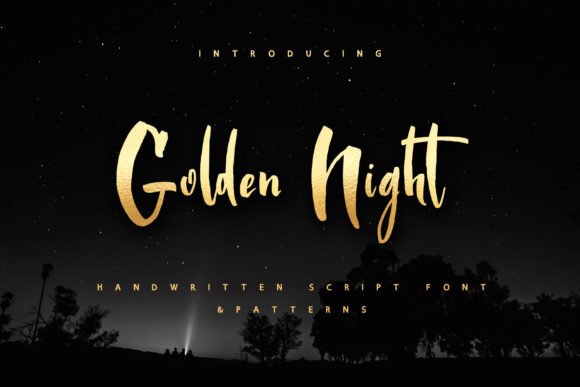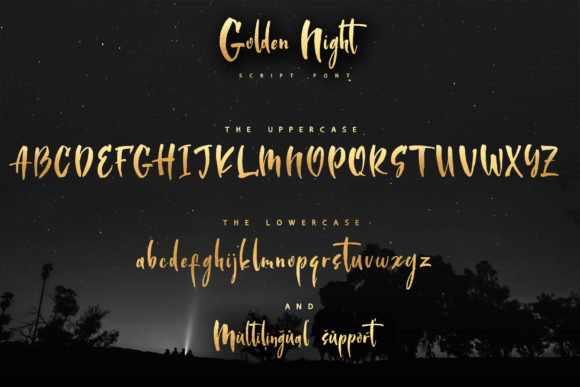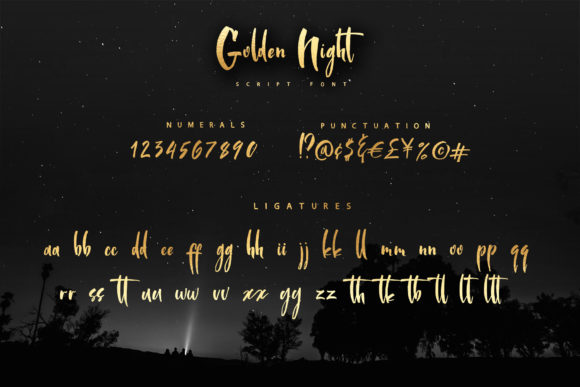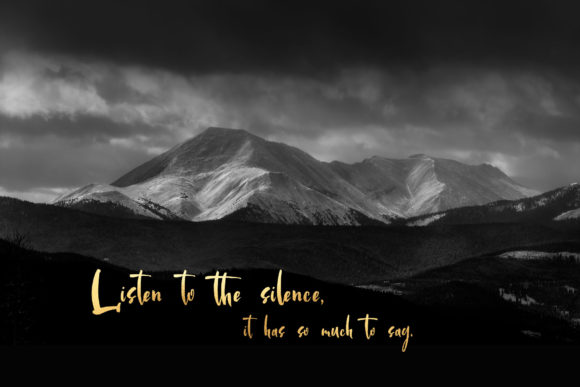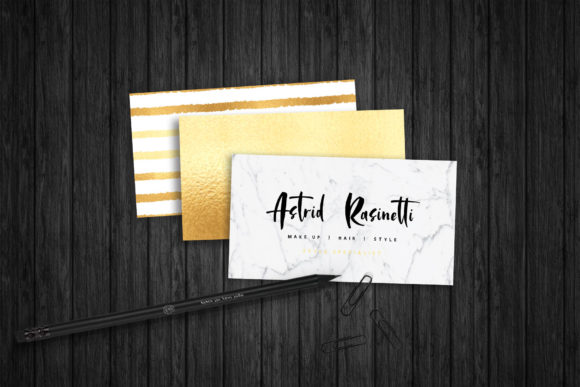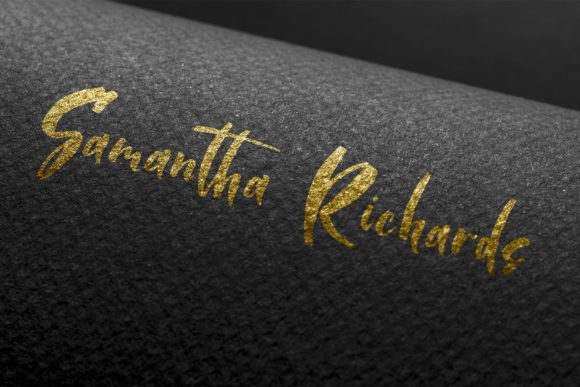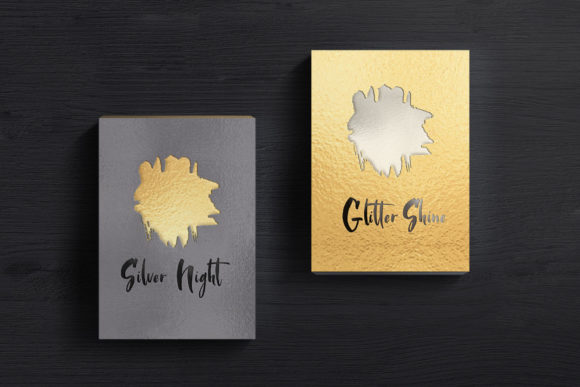
The Magic of Golden Night Font
As designers, we’ve all been there – staring at a blank page, trying to conjure up the perfect idea for a project. The words “dreamy” and “elegant” dance in our minds, and we can almost see the final product take shape. For those moments when you need to add a touch of sophistication to your design, look no further than the Golden Night Font.
This stunning handwritten script font is perfect for branding, logos, wedding stationery, social media, packaging, and other projects that require an extra layer of elegance. Its versatility and unique charm make it a valuable asset for designers, allowing them to create stunning visuals that stand out from the crowd.
With the Golden Night Font, the possibilities are endless. Add a touch of luxury with golden and silver foil, or give your design a playful twist with shiny glitter patterns. Whether you’re working on logos, signatures, labels, packaging design, or blog headlines, this font is sure to elevate your projects to the next level.
Golden Night Font Key Features
- Unique Characteristics: Elegant, cursive script with a touch of luxury and sophistication, perfect for wedding invitations, greeting cards, and formal events
Golden Night Font Review
Golden Night Font has been a fascinating addition to my design library, with a unique blend of elegance and sophistication. ✨ Its intricate details and subtle curves make it perfect for a variety of projects, from luxury branding to fine art.
- ✨ Elegant and sophisticated design that exudes luxury and refinement.
- ✨ Versatile and suitable for a range of applications, including branding, advertising, and editorial content.
- ✨ High-quality typography with intricate details and subtle curves.
- ⚠️ Limited font sizes and styles, which may limit its use in complex designs.
- ⚠️ Some users may find the font too ornate or overwhelming, especially when used in large quantities.
- ⚠️ Not suitable for digital products or interfaces, where legibility and readability are crucial.
In conclusion, Golden Night Font is a beautiful and sophisticated font that shines in certain contexts. While it has some limitations, its unique design and versatility make it a valuable addition to any designer’s library. I would recommend it for luxury branding, fine art, and editorial content, but use it judiciously in digital products and interfaces.
Getting the Most Out of the Golden Night Font
Here are some tips to get the most out of the Golden Night Font:
- Use it in conjunction with other elegant fonts to create a sophisticated look.
- Experiment with different font sizes and colors to add visual interest.
- Use it for headings and titles to draw attention to important information.
The Golden Night Font is ideal for:
- Formal business presentations and reports.
- Luxury product branding and packaging.
Q: What is the recommended font size for using Golden Night Font?
The recommended font size for using Golden Night Font varies depending on the design context. For body text, a font size between 12-14 points is recommended. For headings, a font size between 24-48 points is recommended. However, feel free to experiment with different font sizes to achieve the desired visual effect.